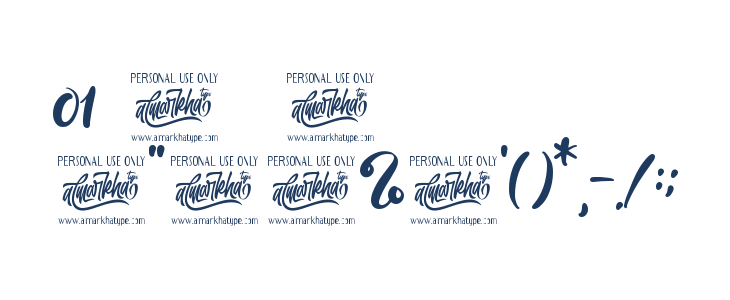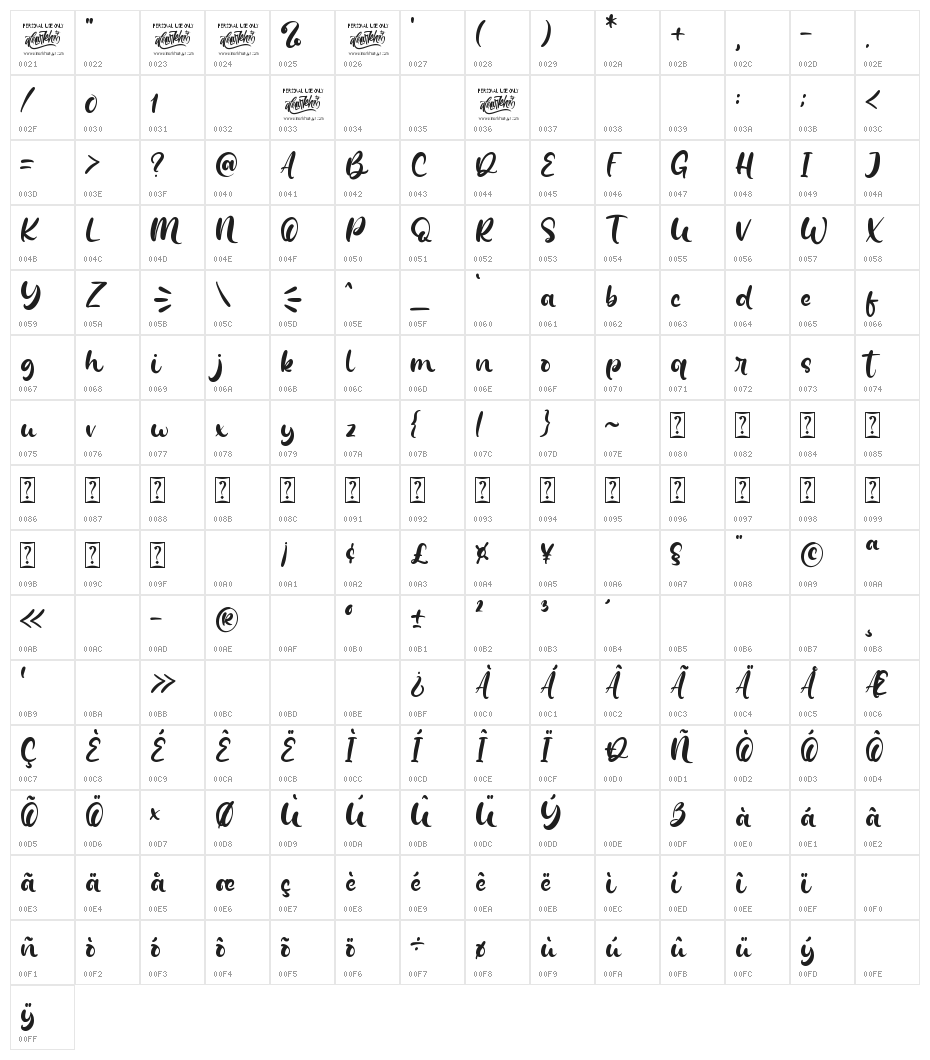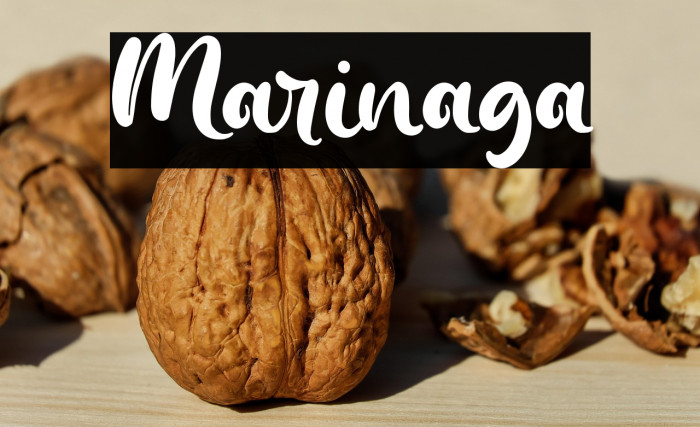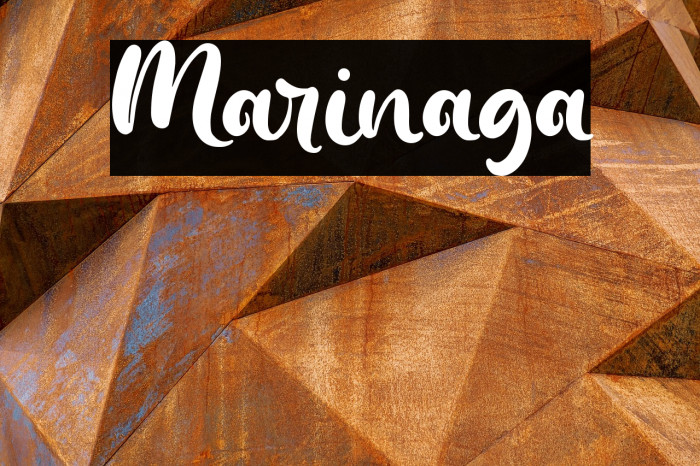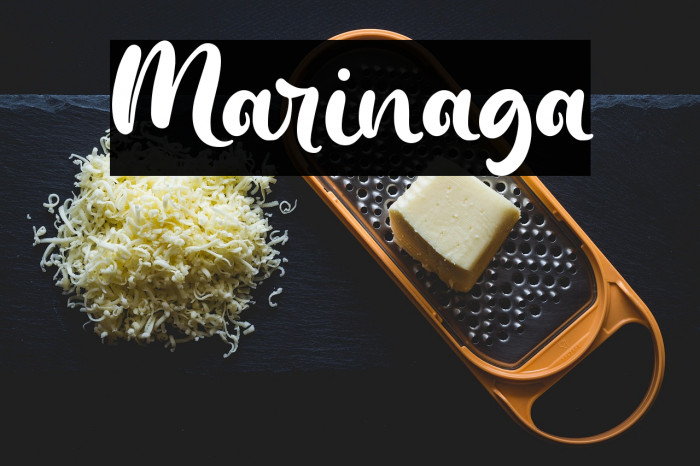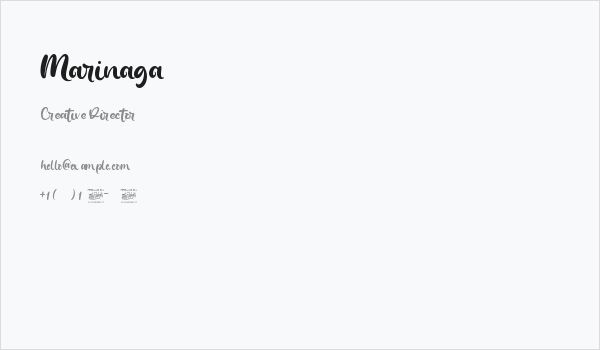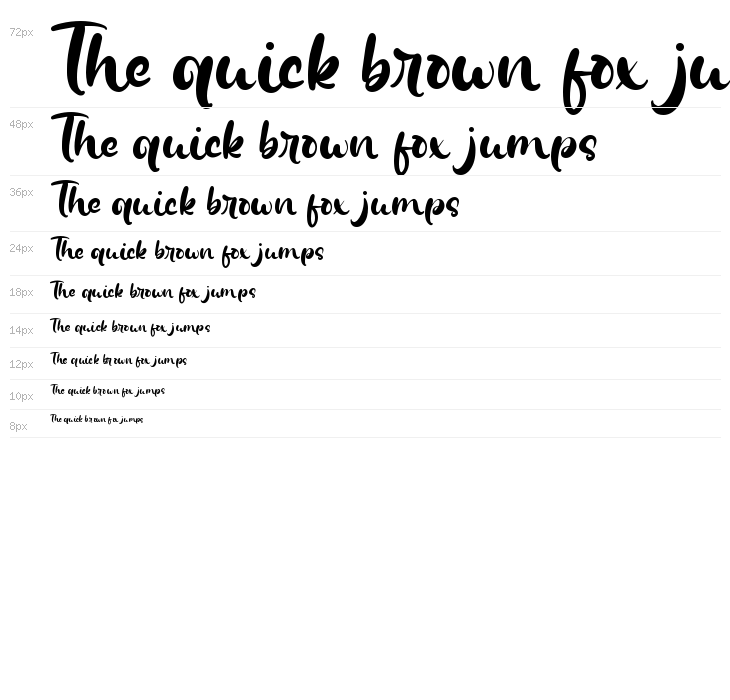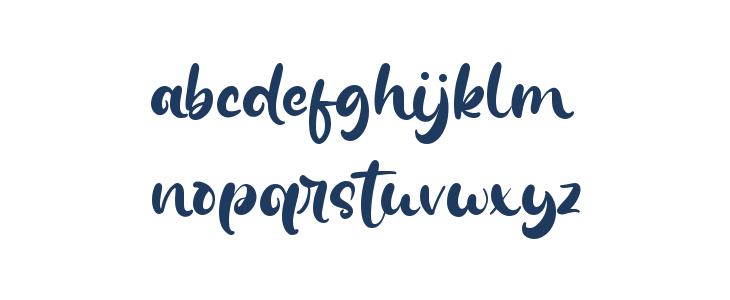
Marinaga Font
This font features a lively and expressive script style, characterized by its fluid and dynamic strokes. The uppercase letters exhibit a bold and confident presence, with sweeping curves and a sense of motion. The lowercase letters maintain a consistent flow, complementing the uppercase with their rounded forms and smooth transitions. The numerals and special characters are crafted with the same attention to detail, ensuring a cohesive look across all glyphs. This font's playful yet elegant appearance makes it suitable for a variety of creative applications.
| Proposed Projects | Ideal for branding, invitations, greeting cards, and creative projects requiring a personal touch. |